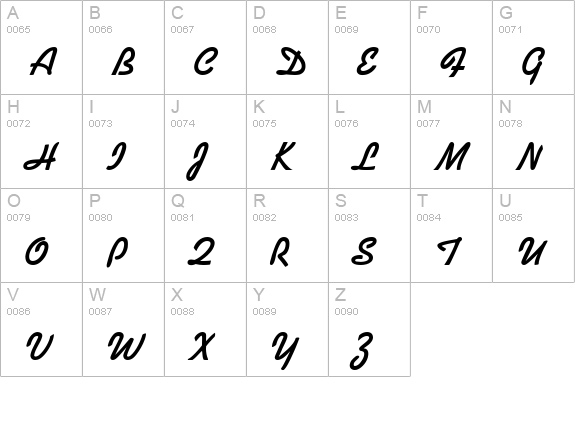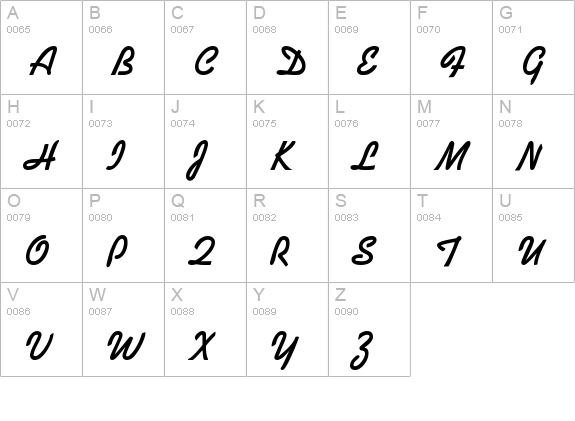
Koala Bold Font Details
Koala Bold is a strong, high-contrast variant in the Koala typeface family \xE2\x80\x94 well suited to headlines, attention-grabbing titles, and strong calls-to-action.
Koala Bold font is a modern and stylish typeface that exudes elegance and sophistication. With its strong, bold lines and sleek curves, this font is perfect for making a bold statement in your design projects. Whether you are creating a logo, poster, or website, Koala Bold font will definitely catch the eye of your audience. What's even better is that Koala Bold font is available for free download at FontsMarket.com. So, you can easily add this stunning font to your collection without any cost. Don't miss out on the opportunity to elevate your designs with the striking Koala Bold font - download it now and make your creations stand out from the crowd!